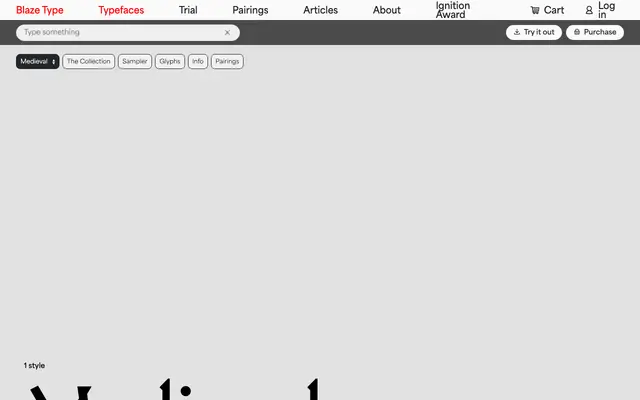
Medieval
Blaze Type · Matthieu Salvaggio, Pauline Fourest · 2026
Medieval specimen from Blaze Type
A reinterpretation of Fritz Helmuth Ehmcke's 1922 Mediaeval, introducing 45° serif geometry and ink traps to sharpen the original's tall ascenders and translation contrast into something more controlled.
Designed by Matthieu Salvaggio and Pauline Fourest and released in 2026, this single-weight serif draws on Stempel's 1922 Mediaeval as its model while trading period looseness for careful geometric precision. The 45° serif segments and ink traps impose discipline without erasing the historical warmth; overall contrast is kept restrained to maintain readability at text sizes. Tall ascenders and architectural rhythm make it well-suited to logotypes, editorial headlines and cultural institution work, where its historical resonance carries weight.
Blaze Type describe it as a transitional typeface, derived from Ehmcke's 1922 Mediaeval; its 45° serif geometry, ink traps and translation contrast align with transitional serif conventions while drawing on Renaissance and early 20th-century type history.